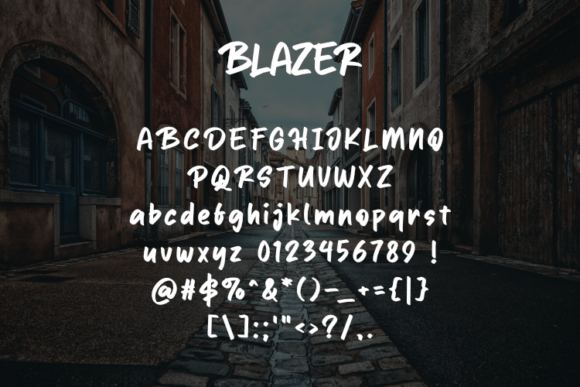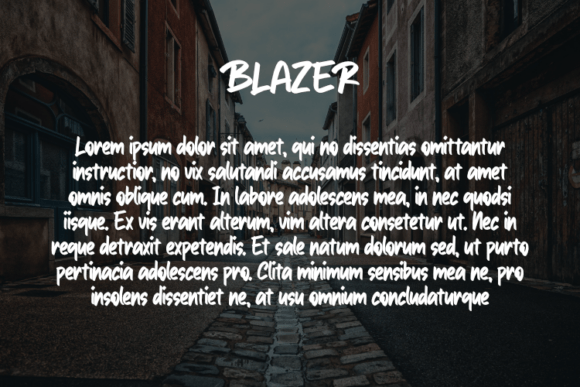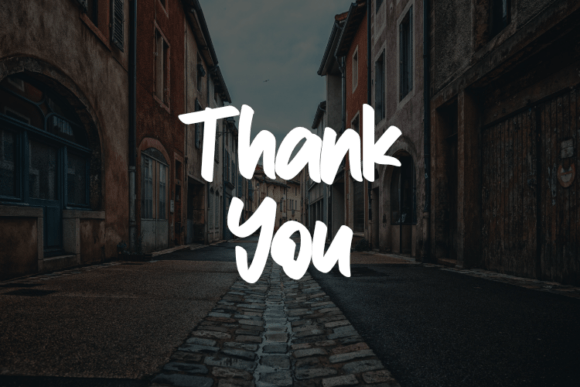
Introducing Blazer Font: The Ultimate Typographic Tool for Designers
Are you tired of using the same old fonts in your designs? Look no further! Make way for “BLAZER”, an expertly-crafted font that is as versatile as it is unique. Perfectly tailored for apparel design such as t-shirts, this versatile typographic tool also shines in a myriad of other design projects, making it a must-have in every design toolkit.
Unleash Your Creativity with Blazer Font
“BLAZER” is more than just a font – it’s a game-changer. Its unique design and versatility make it perfect for a wide range of applications, from apparel design to branding, packaging, and more. Whether you’re a professional designer or a crafty DIY enthusiast, “BLAZER” is the perfect addition to your design arsenal.
Perfect for Apparel Design
“BLAZER” is perfectly tailored for apparel design, making it a must-have for anyone who loves designing t-shirts, hoodies, and other clothing items. Its unique design and versatility ensure that your designs stand out from the crowd, and its high-quality output ensures that your designs look amazing on any type of fabric.
Beyond Apparel Design: Endless Possibilities with Blazer Font
While “BLAZER” is perfect for apparel design, its versatility extends far beyond. Use “BLAZER” for branding, packaging, signage, and more. Its unique design and high-quality output make it perfect for any project that requires a bold, eye-catching font.
Why Choose Blazer Font?
So why choose “BLAZER” over other fonts? Here are just a few reasons why “BLAZER” stands out from the crowd:
- Unique design: “BLAZER” has a unique design that sets it apart from other fonts.
- Versatility: “BLAZER” is perfect for a wide range of applications, from apparel design to branding and packaging.
Bring Your Designs to Life with Blazer Font
With “BLAZER”, you can bring your designs to life like never before. Its unique design and high-quality output ensure that your designs stand out from the crowd, and its versatility makes it perfect for a wide range of applications. Whether you’re a professional designer or a crafty DIY enthusiast, “BLAZER” is the perfect addition to your design toolkit.
Get Ready to Make a Lasting Impression
With “BLAZER”, you can create designs that leave a lasting impression. Its bold, eye-catching design ensures that your designs stand out from the crowd, and its high-quality output ensures that your designs look amazing every time. Whether you’re designing for apparel, branding, or packaging, “BLAZER” is the perfect choice.
In conclusion, “BLAZER” is a game-changing font that is perfect for designers and crafters alike. Its unique design, versatility, and seamless compatibility make it a must-have in every design toolkit. Whether you’re designing for apparel, branding, or packaging, “BLAZER” is the perfect choice. So why wait? Download “BLAZER” today and start creating amazing designs that leave a lasting impression!